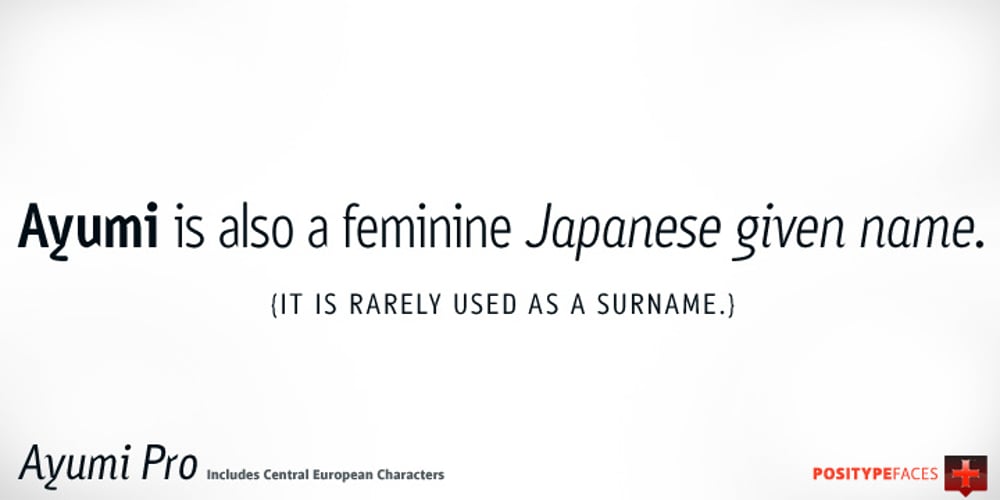
Ayumi Pro
Ayumi Pro font
Ayumi Pro Font Family was designed by Neil Summerour and published by Positype. Ayumi Pro contains 8 styles and family package options. Ayumi is one of those precocious sans. At first glance, I wanted it to look simple…basic characters, moderate modulation, common structure…but at closer inspection, it is filled with all kinds of fun and expressive details. The italics are…well, fun. They’re curvy and expressive and truly compliments the face. The new Pro version includes a tightened character set, Central European glyphs, and remastered kerning.